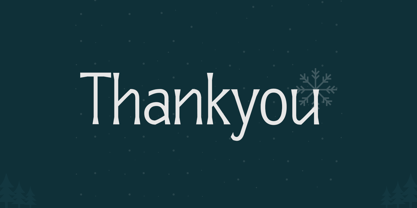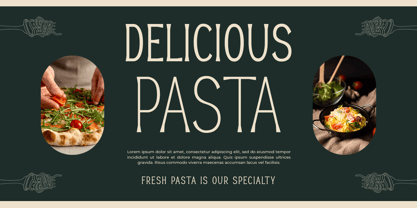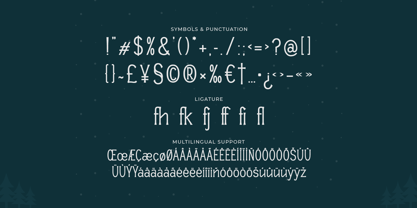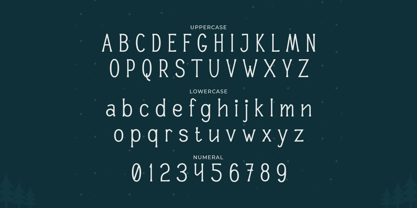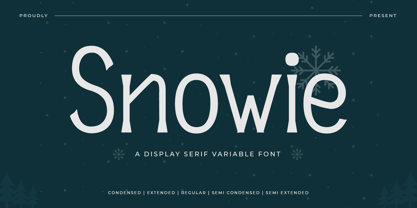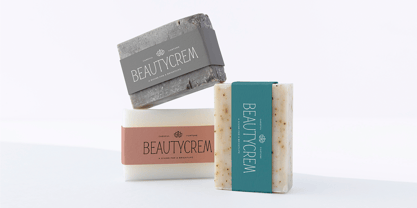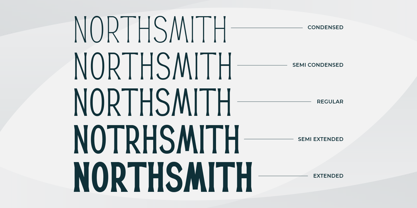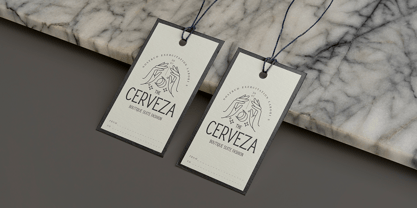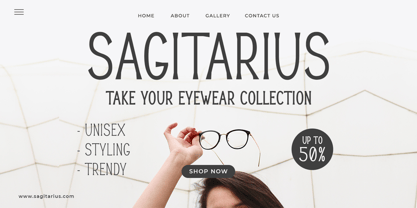
Snowie
The Snowie Font Family was designed by Hilmius Akbar and published by Typefactory. Snowie contains 5 styles and family package options. More about this family
Introducing "Snowie" - a display serif variable font designed to evoke the serene beauty and elegance of freshly fallen snow, perfect for adding a touch of sophistication to your designs.
With its variable weights and graceful serifs, "Snowie" offers versatility and refinement, making it ideal for branding, editorial layouts, invitations, and more.
Embrace the tranquil charm of "Snowie" as it effortlessly enhances your designs with its elegant typography and timeless appeal.
Step into the world of variable fonts with "Snowie" and let your creativity shine with its versatile and captivating design.